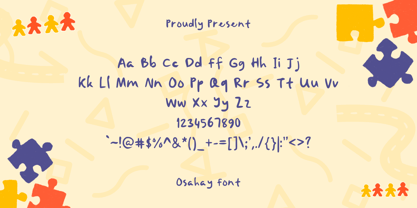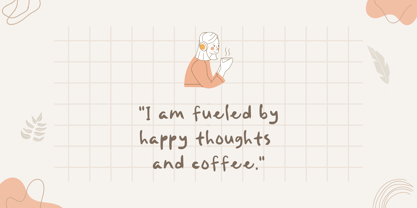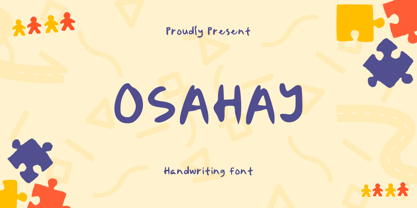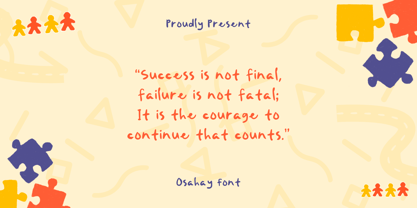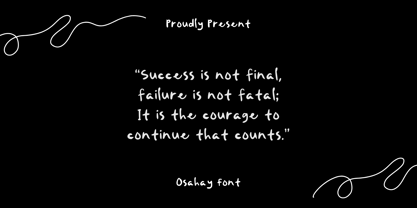
Osahay
by Sidkia Fonts
The Osahay Font Family was designed by and published by Sidkia Fonts. Osahay contains 1 styles. More about this family
Osahay Font is a casual handwritten typeface with a playful and friendly feel. The letters look like natural, real handwriting with soft rounded strokes that make it warm and easy to read. It brings a cheerful and approachable vibe, perfect for motivational quotes, educational designs, social media content, kids projects, and greeting cards. Simple, cute, and full of character ✨
Foundry: Sidkia Fonts